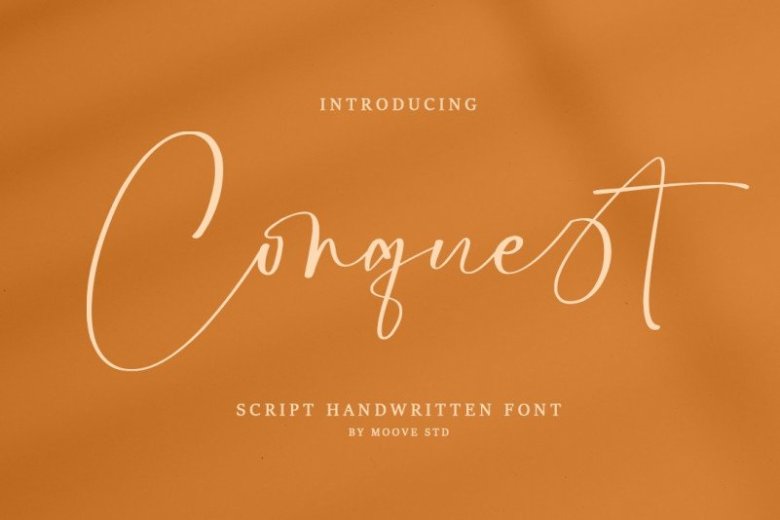
Conquest Font
This is a script type font created by Moove Studio with a signature style. Made with a sket or hand writting process. It is PUA encoded which means you can access all of the glyphs and swashes with ease! It will add a luxury spark to any design project that you wish to create!